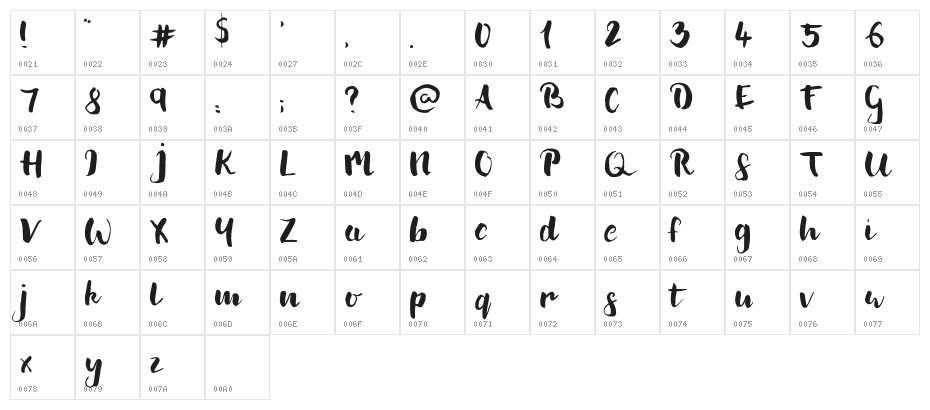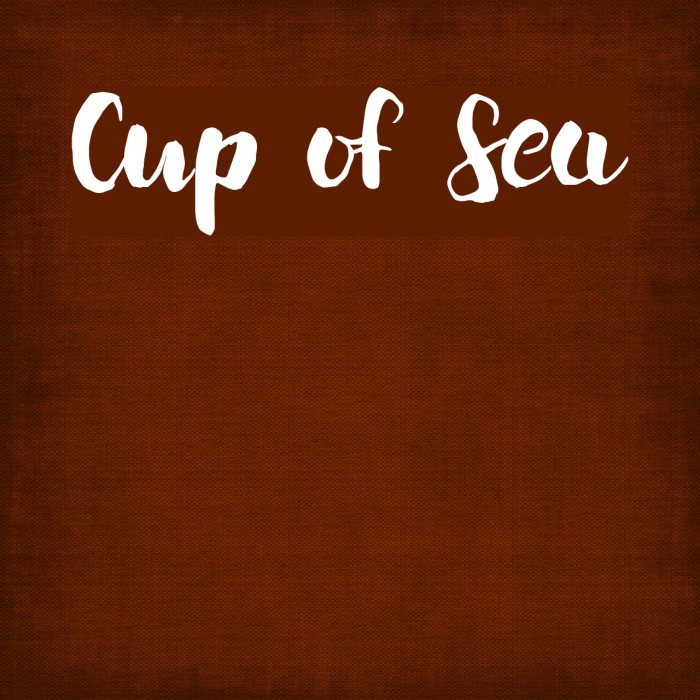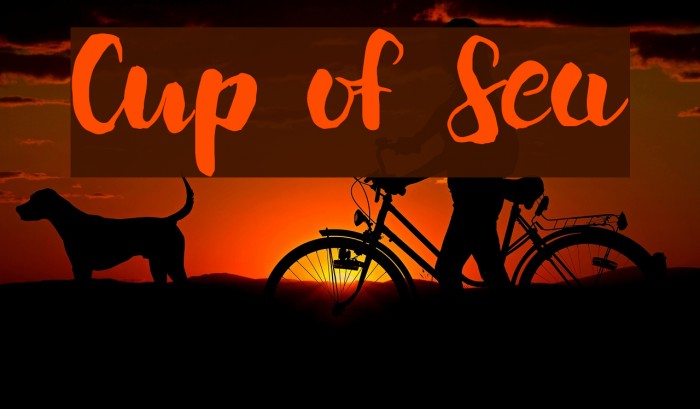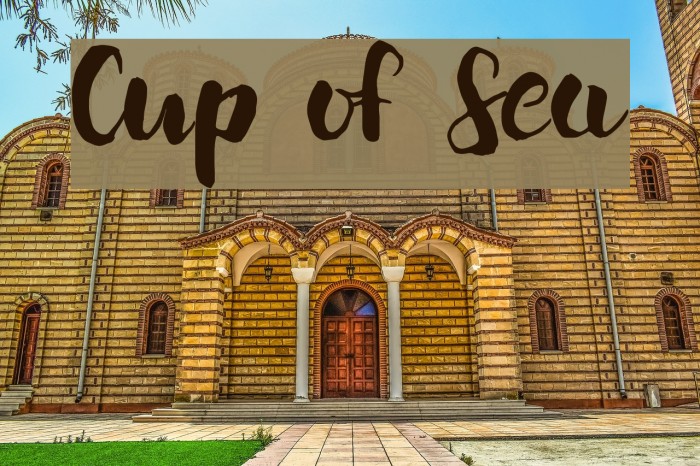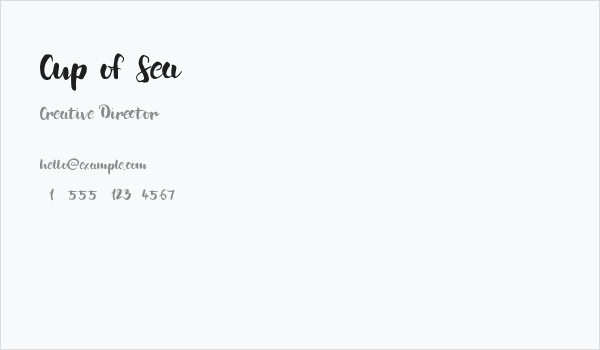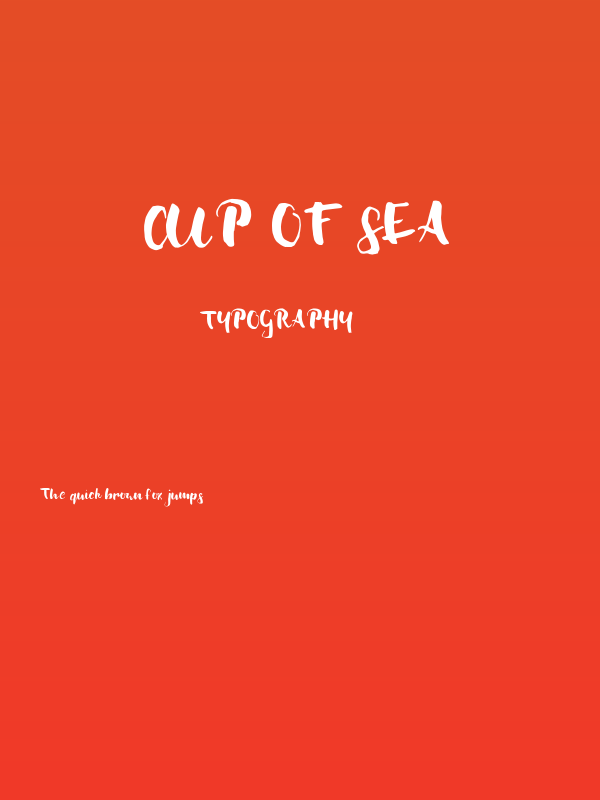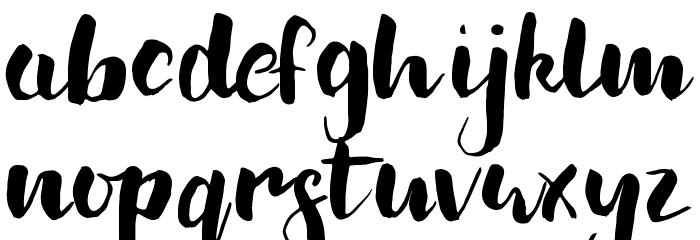
Cup of Sea Font
Cup of Sea Description
This font features a bold and expressive handwritten style, characterized by its fluid and dynamic strokes. The letters exhibit a playful and artistic flair, with varying thickness that adds a sense of movement and energy. The uppercase and lowercase letters maintain a consistent style, with some letters having unique flourishes that enhance the overall aesthetic. The numbers and special characters are designed to match the lively and creative feel of the alphabet, making this font suitable for projects that require a personal and artistic touch.
| Proposed Projects | Ideal for creative projects such as invitations, greeting cards, branding, and artistic posters. |